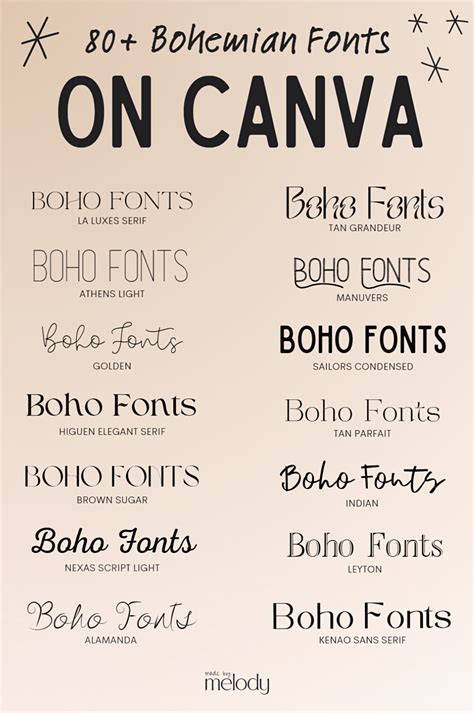
What Are Unique Fonts & How Can You Leverage Them?
In the world of design, fonts are an essential part of the creative process. They’re the foundation of any design, whether it’s a logo, an advertisement, or a website. However, it can be difficult to find the right font for the right project. That’s why many designers are turning to unique fonts to give their projects that extra bit of personality. But what exactly are unique fonts, and how can you leverage them to their full potential? This article will answer those questions and more.
What Are Unique Fonts?
Unique fonts are, as their name implies, fonts that are not commonly used. They are often handmade, have quirky details, and can be quite eye-catching. They can be used for any type of design project, from logos to advertisements to websites. Unique fonts are a great way to stand out from the crowd, as they can convey a certain mood or emotion that would otherwise be difficult to capture with a standard font.
How Can You Leverage Unique Fonts?
Unique fonts can be used in a variety of ways. They can be used to create logos that stand out from the crowd, or to create eye-catching advertisements. They can also be used to create memorable websites and other digital designs. By using unique fonts, you can create designs that are sure to make an impression.
Choosing the Right Unique Font
The key to leveraging unique fonts is to choose the right one. You’ll want to make sure the font complements the overall design and conveys the right message. It’s also important to choose fonts that are easy to read and understand. You don’t want to use a font that is too difficult to read or that looks too strange. When choosing a font, make sure to do your research and make sure it’s the right fit for the design.
Using Unique Fonts Creatively
Once you’ve chosen the right font, you’ll want to make sure you use it creatively. Unique fonts can be used to create unexpected designs, such as logos with unusual shapes or typography-based advertisements. By using unique fonts in creative ways, you can make your designs stand out from the rest.
Unique fonts are a great way to make your designs stand out from the crowd. By choosing the right font and using it creatively, you can create designs that are sure to make an impression. So if you’re looking for a way to make your designs stand out, consider using unique fonts.